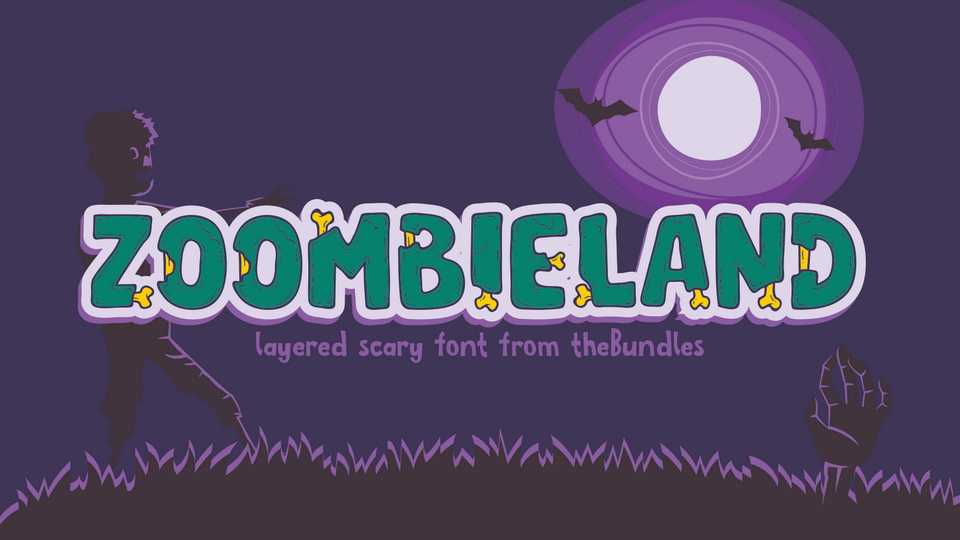
Download Zombieland font, a fun layered display typeface with outline, flesh, and bones. Zombieland font is perfect for Halloween decoration, cards, covers, posters and other horror stories.